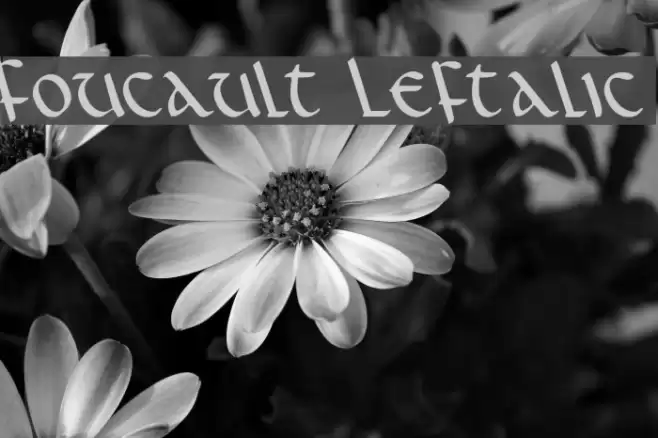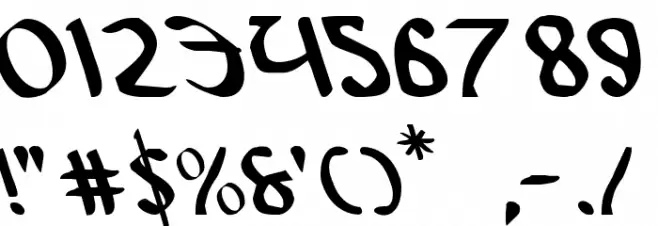
Foucault Leftalic Font
Foucault Leftalic Description
This font features a unique and artistic style with a leftward slant, giving it a dynamic and flowing appearance. The characters are bold and have a calligraphic influence, with strokes that vary in thickness, adding a sense of movement and energy. The uppercase and lowercase letters maintain a consistent style, with rounded edges and a slightly condensed form. The numerals and special characters are designed to match the overall aesthetic, making the font suitable for creative and expressive projects.
A bold, left-leaning calligraphic font with dynamic strokes from Gothic fonts.
- Proposed Projects: Ideal for artistic projects, branding, posters, and creative designs that require a unique and expressive typeface.
- Use Case: Logos, Posters, Artistic projects